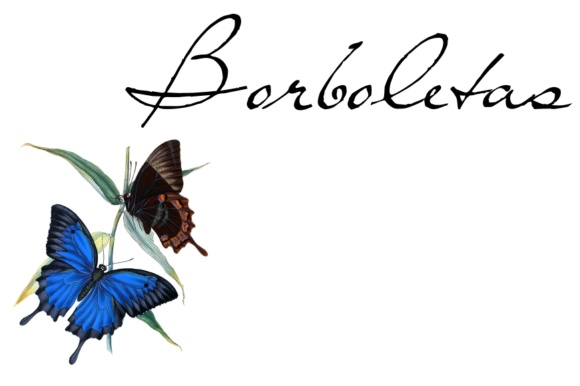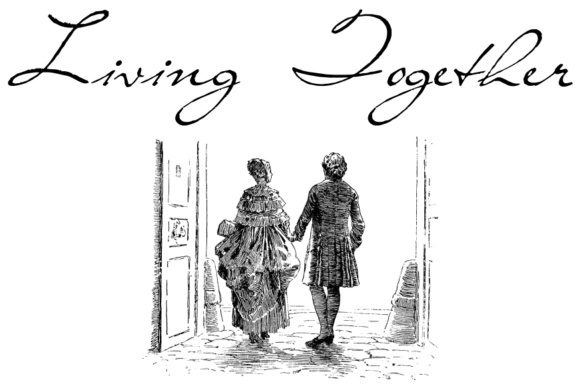
Living Together Font
About Living Together Font
Living Together is a casual, handwrittten font with tons of movement and style. This script looks anchored in yesteryear, and can add a thematic feel to your works.